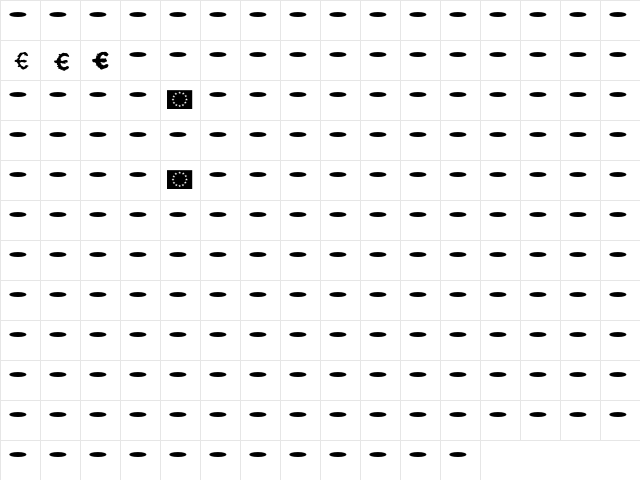
Burokrat Euro
Design Context for Burokrat Typeface
Burokrat is a composed and adaptable typeface that performs quietly and consistently across a wide range of design contexts.